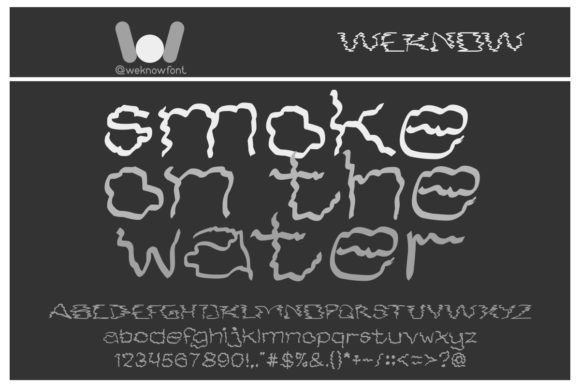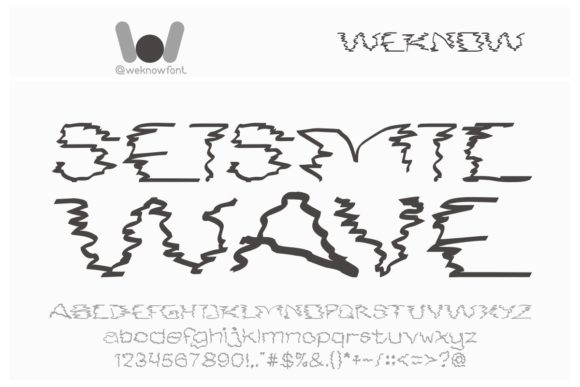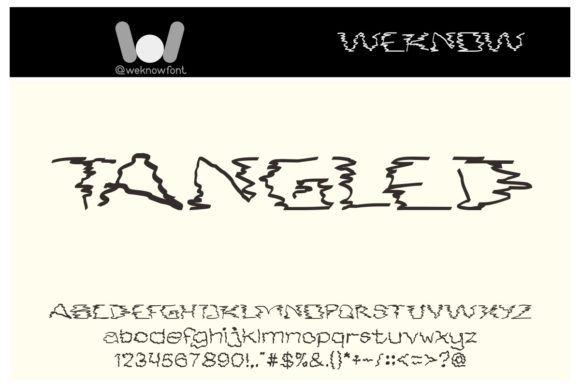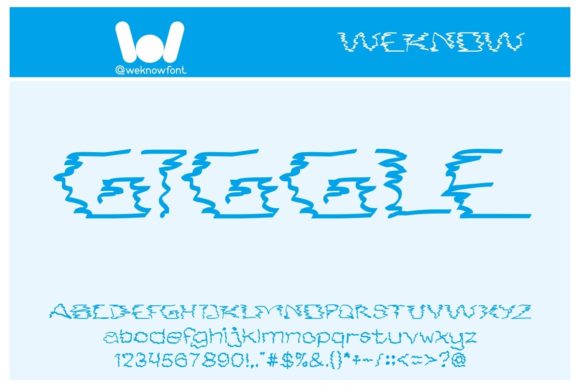
Introduction to Smoke in the Water Font
Have you ever been working on a creative project, pouring your heart and soul into it, and then – suddenly – you need that perfect font to tie everything together? That’s exactly what happened to me when I stumbled upon the Smoke in the Water Font. I was in the middle of designing a presentation for a client, and I just couldn’t find the right font to match the mood I was trying to convey. That’s when I discovered this wavy, display font that immediately caught my eye.
As a designer, you know how valuable a good font can be to a project. It’s what sets the tone and elevates your design from good to great. And that’s exactly what the Smoke in the Water Font does – it adds a touch of sophistication and whimsy to any design. Whether you’re working on a digital project, making greeting cards, or even crafting, this font is a game-changer.
So, what makes the Smoke in the Water Font so special? For starters, it’s a high-quality design resource that’s perfect for any creative project. And the best part? It’s available for free download, making it an amazing resource for designers on a budget. With its transparent background and wavy design, it’s sure to add a unique touch to any project.
Key Features of Smoke in the Water Font
- High-quality design resource with a unique, hand-drawn style perfect for creative projects.
- Includes a transparent background for easy integration into various design elements.
- Features a large character set with over 200 glyphs, including letters, numbers, and special characters.
- Designed at a high resolution of 1024 x 1024 pixels for crisp and clear display on various screens.
- Perfect for use in logos, branding, and other creative projects where a unique, hand-crafted look is desired.
Honest Review: Smoke in the Water Font
I recently had the opportunity to use the Smoke in the Water Font in a creative project, and I must say it was a great experience. As a designer, I’m always on the lookout for high-quality design resources that can elevate my work, and this font definitely delivers.
- ✨ The font has a unique and stylish design that can add a touch of sophistication to any project.
- ✨ The font includes a transparent background, which allows for easy customization and integration with other design elements.
- ⚠️ The font may not be suitable for all types of projects, particularly those that require a more formal or traditional look.
- ⚠️ The font’s design may not be suitable for very small text sizes, as it may become difficult to read.
Overall, I was impressed with the Smoke in the Water Font and would recommend it to designers looking for a unique and stylish design resource. With a little creativity, this font can be a great addition to any project, and its free download makes it an excellent value for designers on a budget.
The Smoke in the Water Font is perfect for:
- Adding a touch of elegance to your designs.
- Creating a unique and eye-catching logo.
- Designing a website with a transparent background.